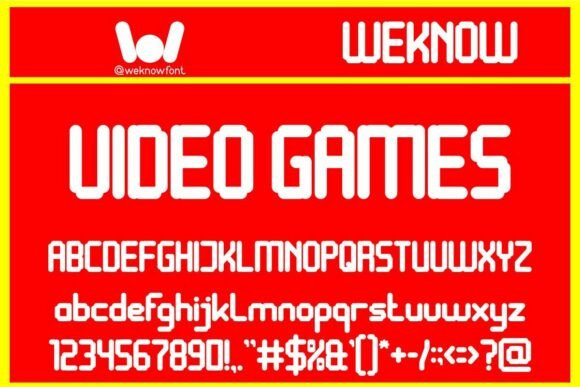
Step into the Future with Video Games Font: Elevate Your Design to the Next Level
In the rapidly evolving digital landscape, creating a lasting impression through your brand identity is more crucial than ever. One of the most effective ways to make your mark is by choosing the right typography. Introducing Video Games, a dazzling, techno-sci-fi typeface that is revolutionizing the world of design. This LED-inspired modular font is engineered to offer balanced roundness and modern sophistication, making it an indispensable tool for designers aiming to craft impactful brand identities.
Unlocking the Potential of Video Games Font
Video Games font is not just another typeface; it’s an advanced design solution optimized for readability and performance. Its unique blend of futuristic appeal and versatility makes it suitable for a wide array of applications, from branding and advertising to media projects and digital content creation.
Key Features of Video Games Font:
- Balanced Roundness: The font’s design ensures a perfect balance between roundness and modernity, making it visually appealing and highly legible.
- Modern Sophistication: With its techno-sci-fi aesthetic, Video Games font brings a level of sophistication that is hard to achieve with traditional typefaces.
- LED-Inspired Modular Design: The modular design inspired by LED displays gives the font a unique and futuristic look.
- Optimized for Readability and Performance: Ensuring that your message is conveyed clearly and effectively, whether on digital platforms or print materials.
Elevate Your Brand Identity with Video Games Font
Your brand identity is what sets you apart from the competition. With Video Games font, you can take your headlines, logos, and logotypes to the next level. This typeface is specifically designed to make your corporate identification stand out in the overwhelming digital matrices of the modern era. Its progressive appeal ensures that your brand not only communicates its message effectively but also leaves a lasting impression on your audience.
Versatile Applications of Video Games Font:
- Branding: Create a strong and memorable brand identity that resonates with your target audience.
- Media Projects: Whether you’re working on a poster, music piece, movie assignment, or game interface, Video Games font can masterfully level up your project.
- Magazines, Books, Comics, and Cartoons: Add a touch of modernity and appeal to your publications with this versatile typeface.
- Digital Content: Give your Instagram feed, YouTube content, or website an unforgettable facelift with the forward-thinking charm of Video Games font.
Transforming Digital Content with Video Games Font
In the digital age, content is king. However, with the sheer volume of information available, capturing and retaining your audience’s attention is a significant challenge. Video Games font offers a solution by adding a pulsating vibe to your digital content. Whether you’re a social media influencer looking to revamp your Instagram feed or a YouTube creator aiming to charge your content with a dynamic energy, this font is your go-to choice.
Unleashing Your Design Potential
The game of design is all about standing out. In a world where visual content dominates, using a unique and impactful typeface can make all the difference. Video Games font is not just a design tool; it’s a gateway to limitless creativity. Whether you’re a professional designer or a DIY enthusiast, this font empowers you to push the boundaries of what’s possible in design.
Tips for Maximizing the Impact of Video Games Font:
- Experiment with Sizes and Colors: Don’t be afraid to play around with different sizes and colors to find what works best for your project.
- Combine with Other Fonts: Video Games font pairs well with a variety of typefaces. Experiment with combinations to create a unique look.
- Consider Your Audience: Tailor your use of Video Games font to appeal to your target audience.
Video Games font is more than just a typeface; it’s a design revolution. With its unique blend of modern sophistication, balanced roundness, and futuristic appeal, it’s the perfect tool for anyone looking to elevate their design to the next level. Whether you’re crafting a brand identity, working on media projects, or simply looking to refresh your digital content, Video Games font offers endless possibilities. Unleash your design potential and make a differenceโstep into the future with Video Games font.
Get Ready to Level Up Your Design:
Explore the limitless possibilities of Video Games font today and discover how this techno-sci-fi typeface can transform your brand identity, media projects, and digital content.